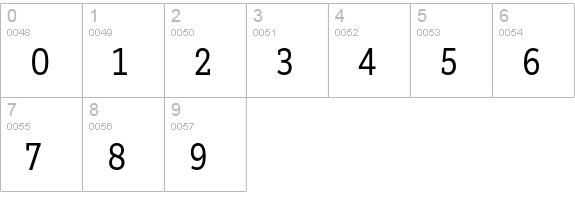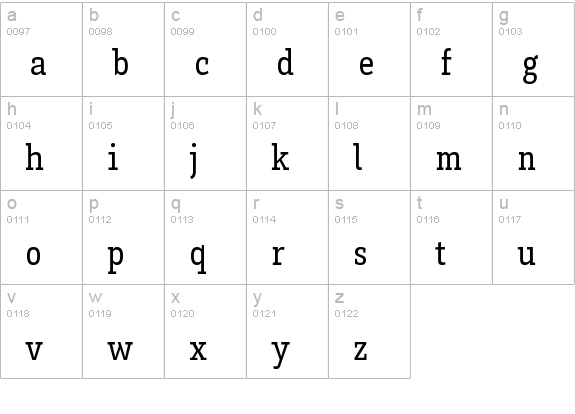
Brix Slab Cond Regular Font Details
Brix Slab Cond Regular is the standard, neutral, condensed-width variant in the Brix typeface family \xE2\x80\x94 well suited to general body text, paragraphs, and standard typographic work.
Brix Slab Cond Regular font is a modern and versatile typeface that combines a sleek and sophisticated design with a touch of elegance. Its condensed form makes it ideal for headlines, titles, and other display purposes where space is limited. The clean lines and sharp edges give this font a contemporary look that is sure to make your designs stand out. What's even better is that Brix Slab Cond Regular font is completely free to download at FontsMarket.com. This means you can access this high-quality typeface without breaking the bank. Whether you're working on a personal project or a professional design, Brix Slab Cond Regular font is a great choice for adding a touch of style and class to your work. Download it today and elevate your designs to the next level!